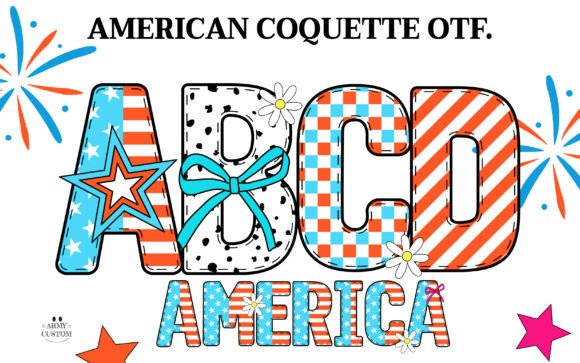
Adenman Posted Tuesday at 10:36 AM Share Posted Tuesday at 10:36 AM Immerse yourself in the spirit of patriotic celebrations with the American Preppy Font. True to its name, this font captures the essence of Memorial Day American in every curve and line. Uniquely designed and inspired by the heart of the United States, it embodies the charm and spirit of American aesthetics. This is not just a font; it’s a tribute to the Land of the Free, brought to life through typography. The American Font is sure to infuse an unmatched patriotism into your creative projects. Compatibility: windows & apple/mac & linux Giveaway Link –> https://www.creativefabrica.com/product/american-coquette-2/ phen0men4, npo33770, vhick and 1 other 2 2 Quote Link to comment Share on other sites More sharing options...